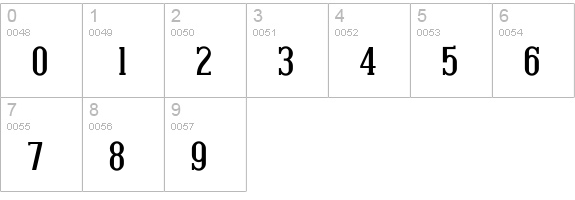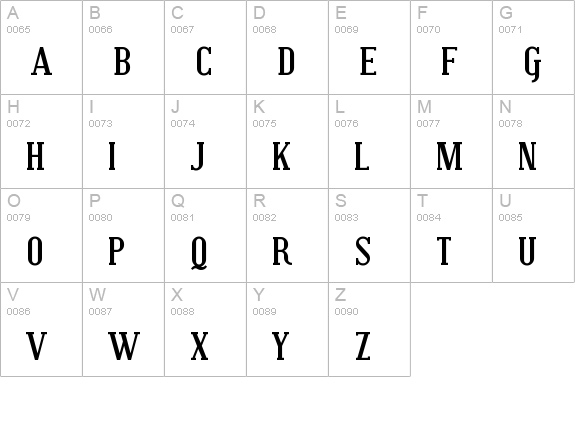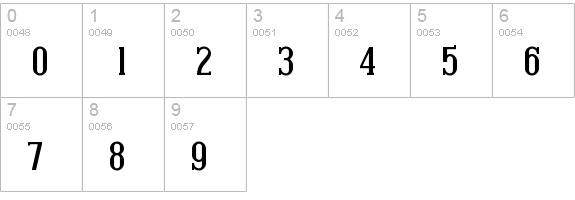
Covington Bold Font Details
Covington Bold is a strong, high-contrast variant in the Covington typeface family \xE2\x80\x94 well suited to headlines, attention-grabbing titles, and strong calls-to-action.
Covington Bold is a versatile and modern font that exudes confidence and sophistication. Its bold and clean lines make it perfect for a wide range of design projects, from logos to headlines to branding materials. The strong presence of this font commands attention and adds a touch of elegance to any project. What sets Covington Bold apart is its unique blend of classic and contemporary design elements, making it a timeless choice for both print and digital applications. Whether you're looking to make a statement or simply add a touch of flair to your designs, Covington Bold is sure to impress. The best part? Covington Bold is available for free download at FontsMarket.com, making it accessible to designers of all skill levels. Don't miss out on this opportunity to elevate your designs with the bold and striking Covington Bold font.